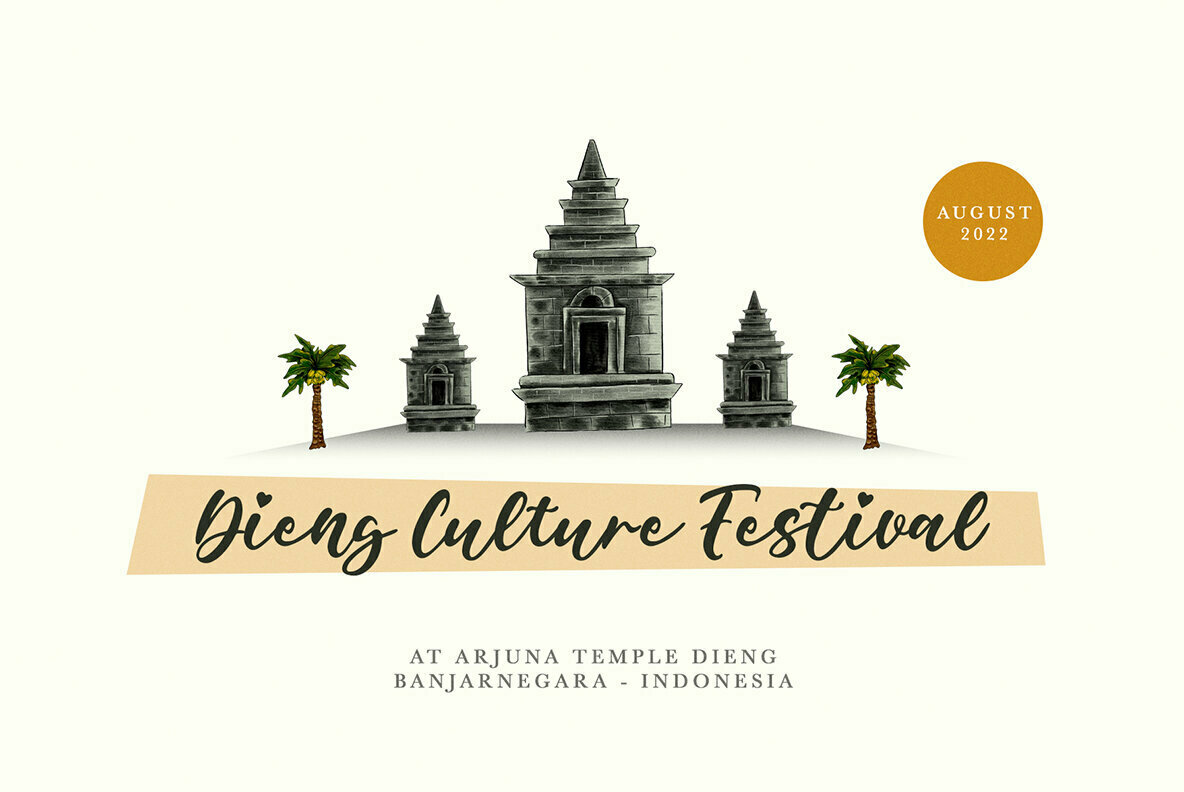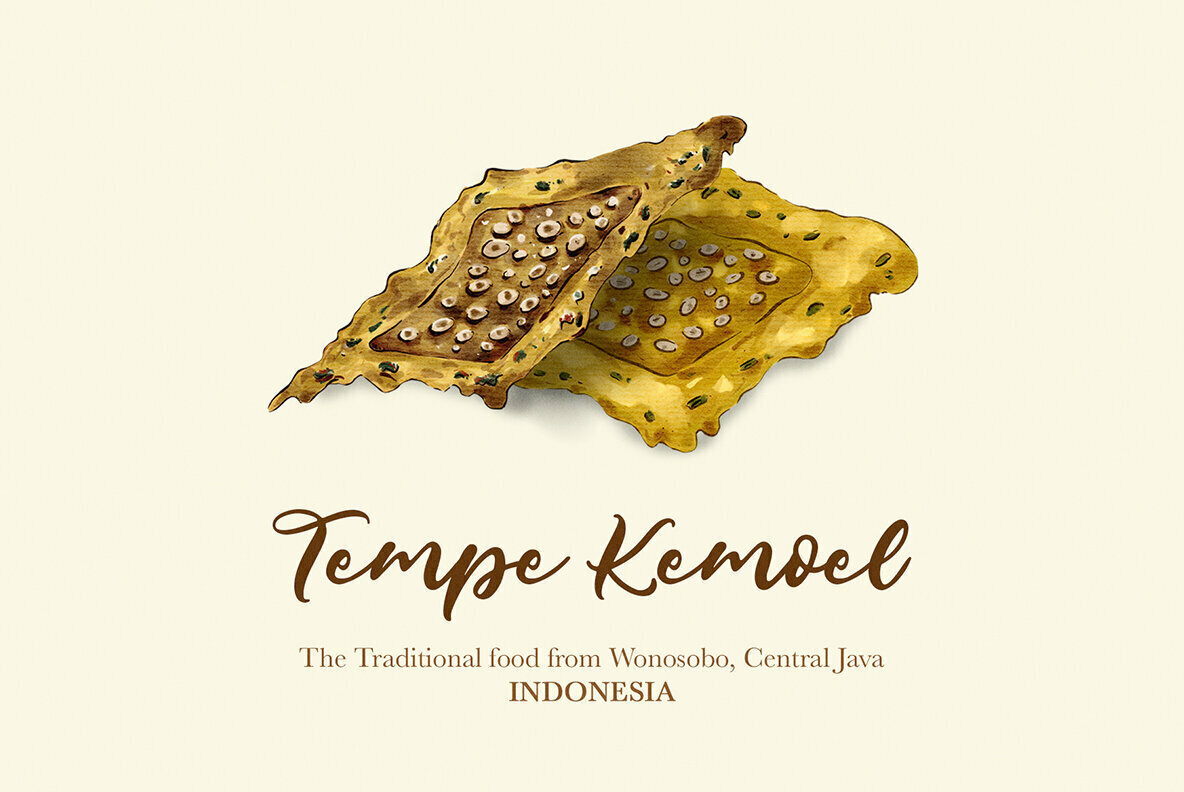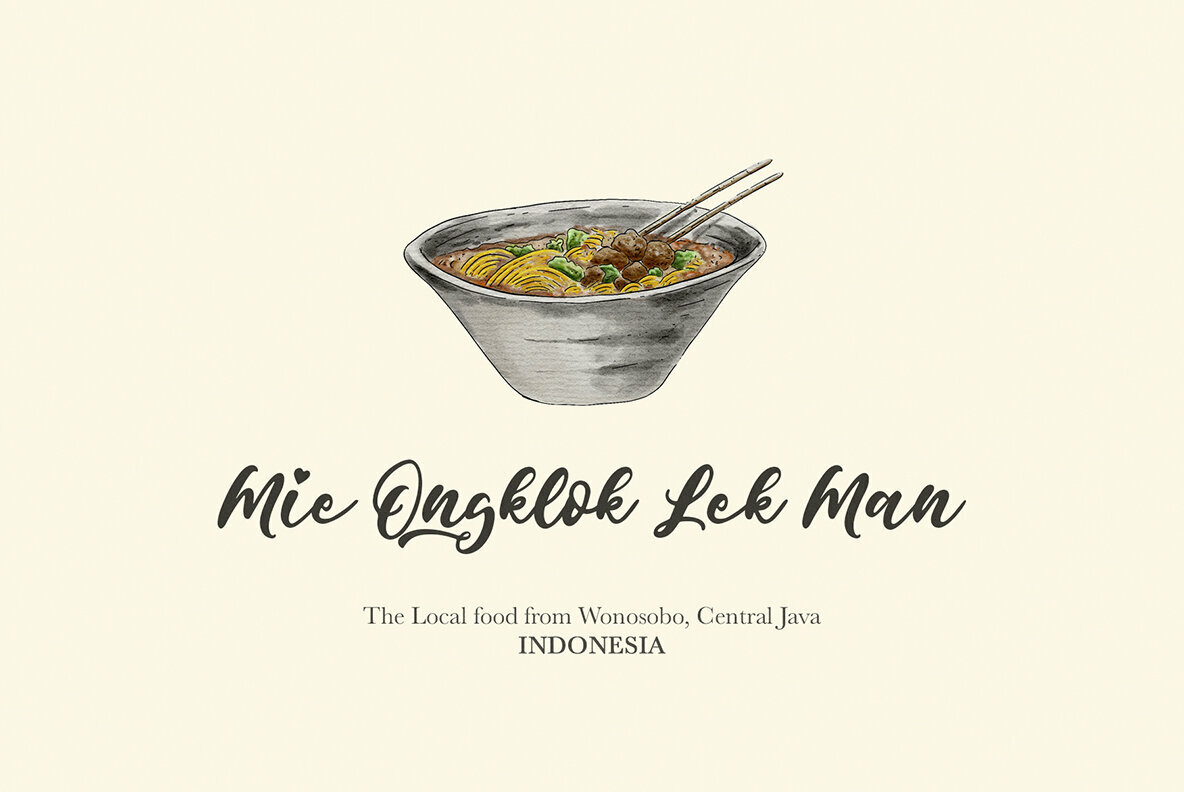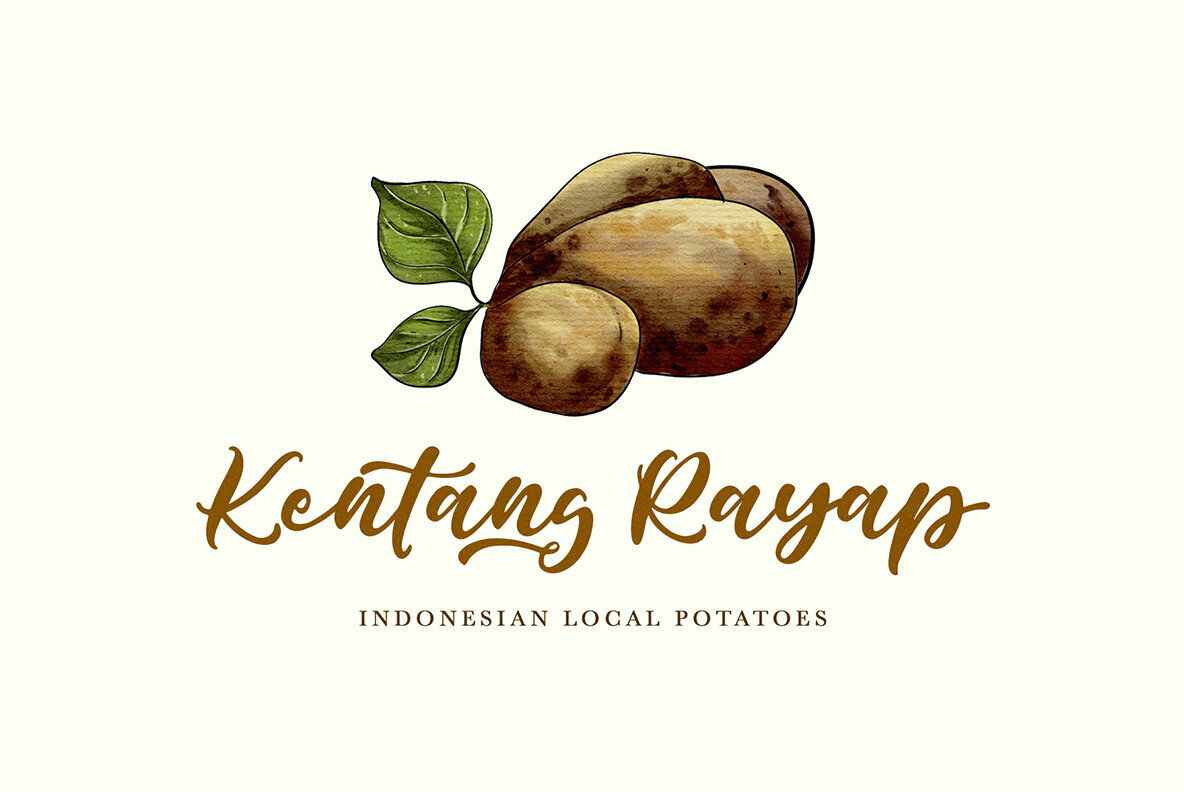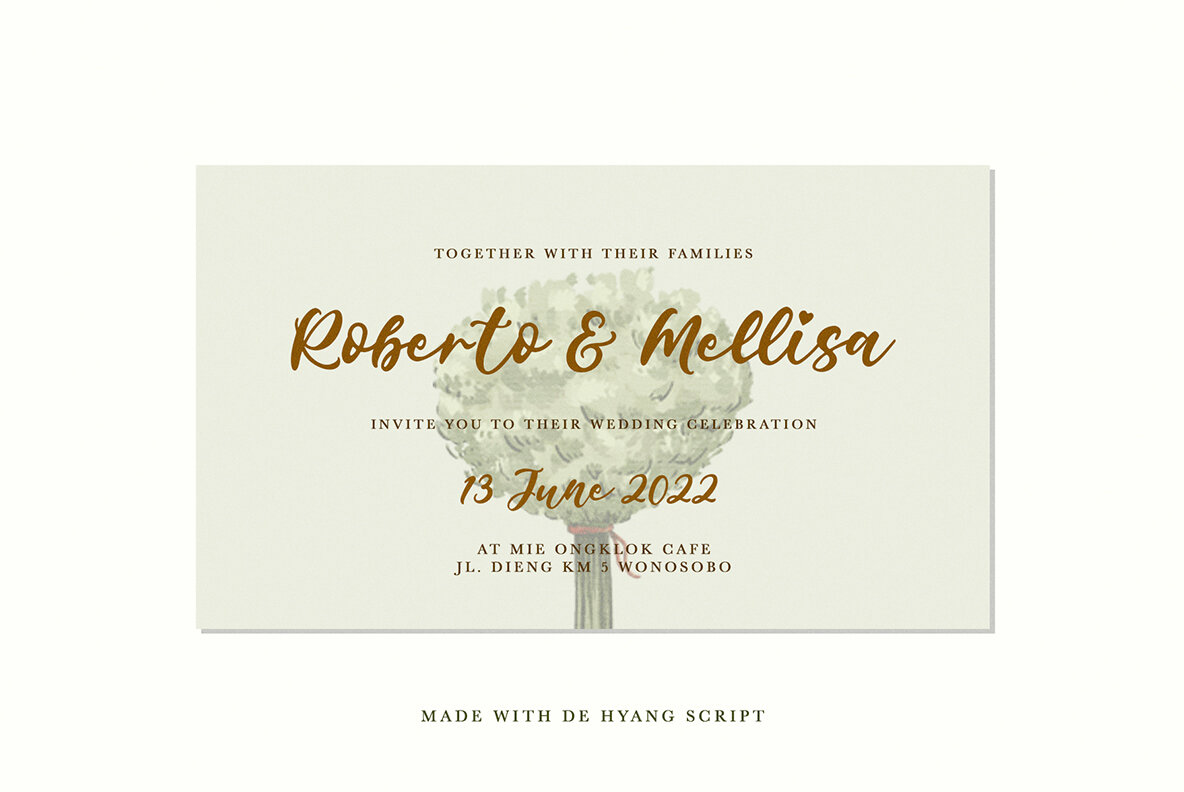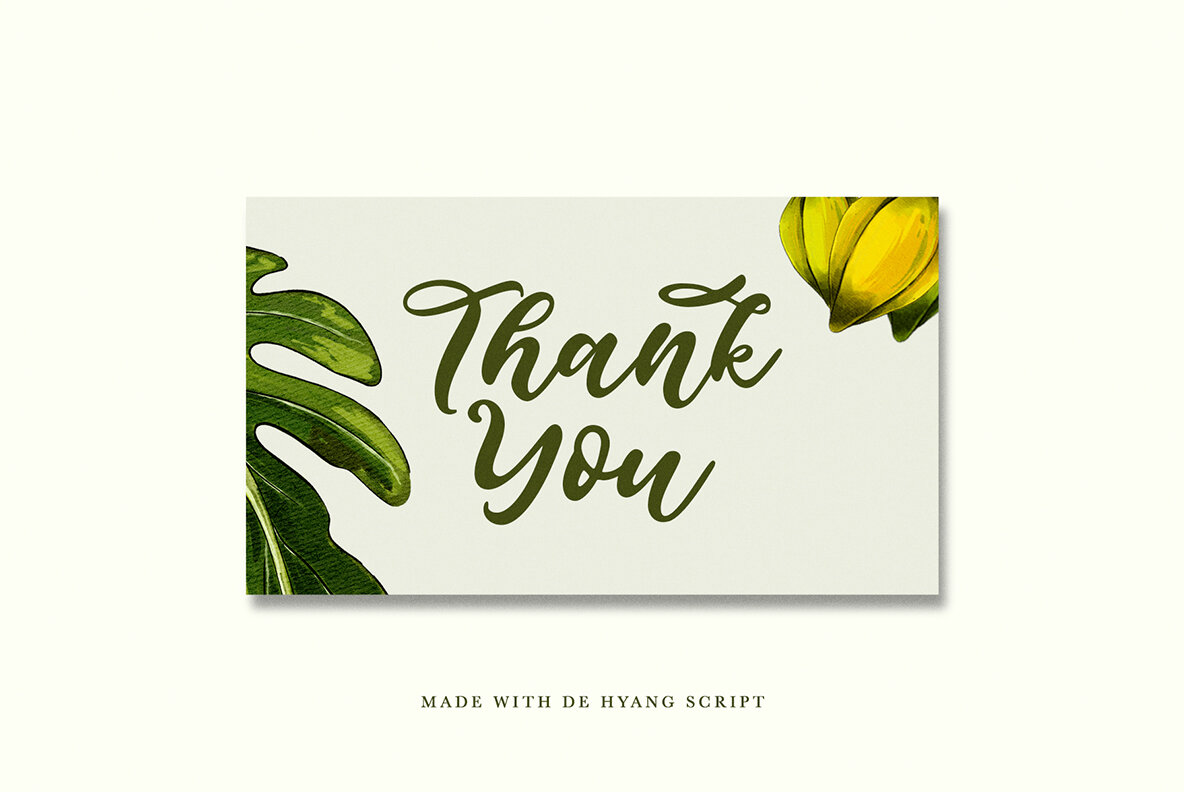
De Hyang Script Font
De Hyang Script Regular
De Hyang Script, crafted with meticulous attention to detail, offers a hand lettering script font that echoes the natural flow of manual handwriting. Ideal for a host of creative endeavors, this typeface captures authenticity, adding a personal touch to any design project. Whether creating a logotype or designing elegant invitations, its distinct style brings warmth and personality to your work.De Hyang Script: Hand Lettering Elegance